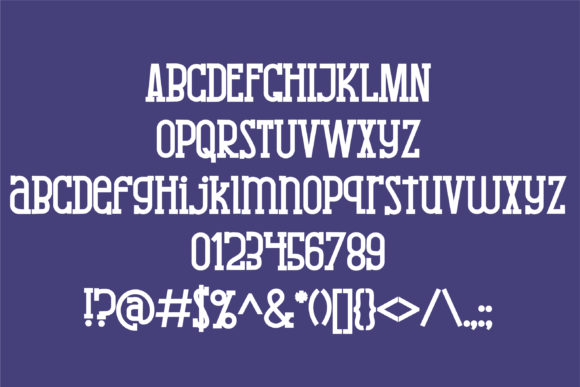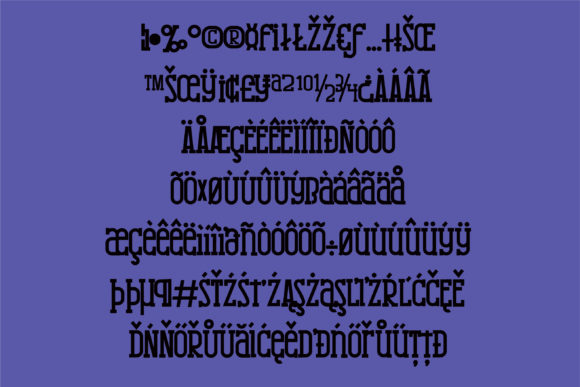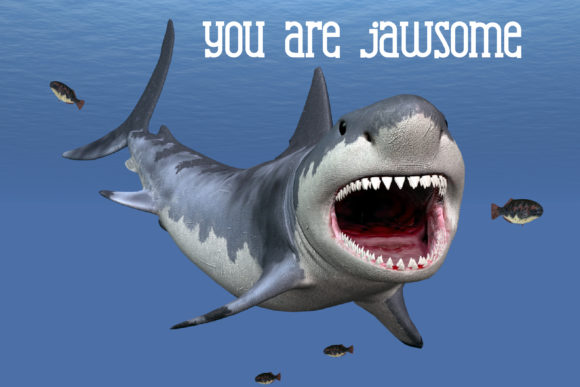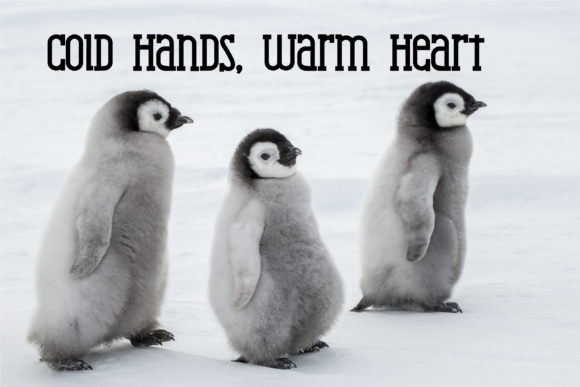
Introduction to Paper Plate Font
Get inspired by Paper Plate.
This cute and whimsical serif font has a unique blocky style .
Key Features of Paper Plate Font
Why Choose Paper Plate Font?